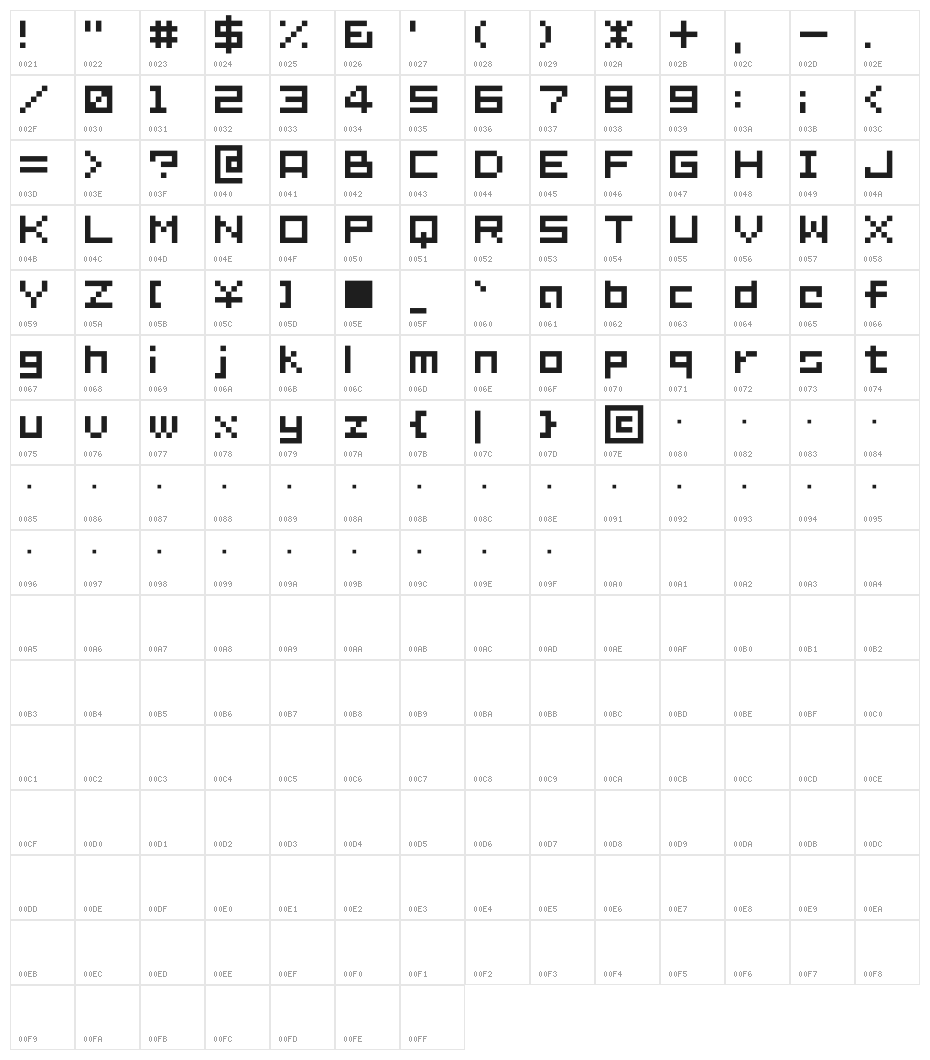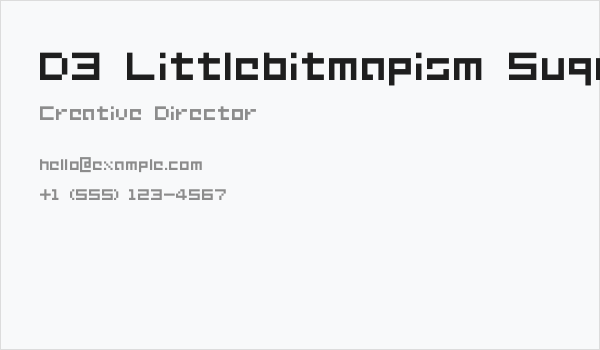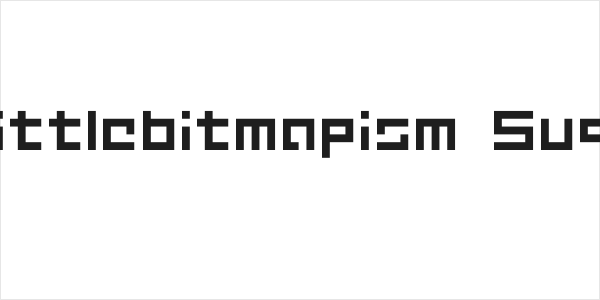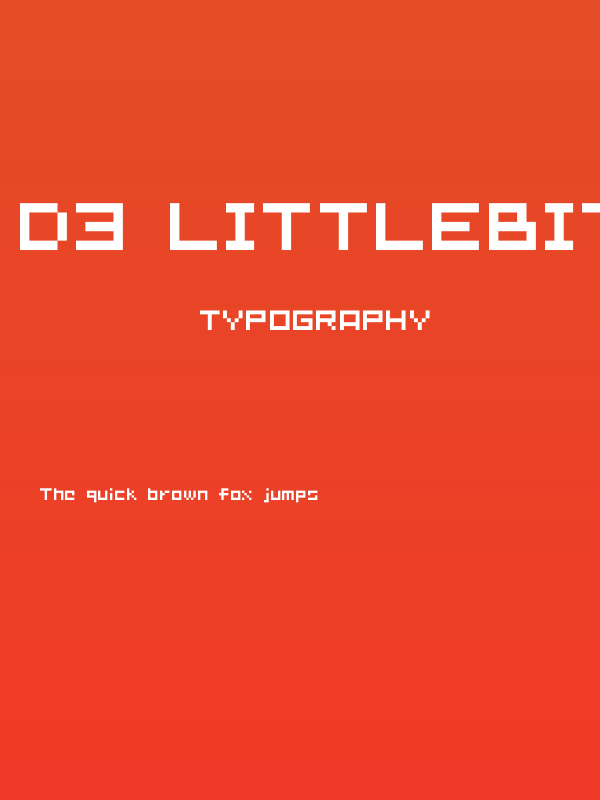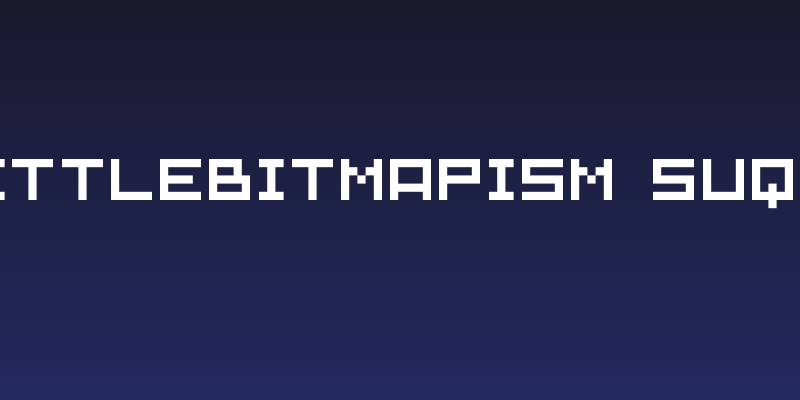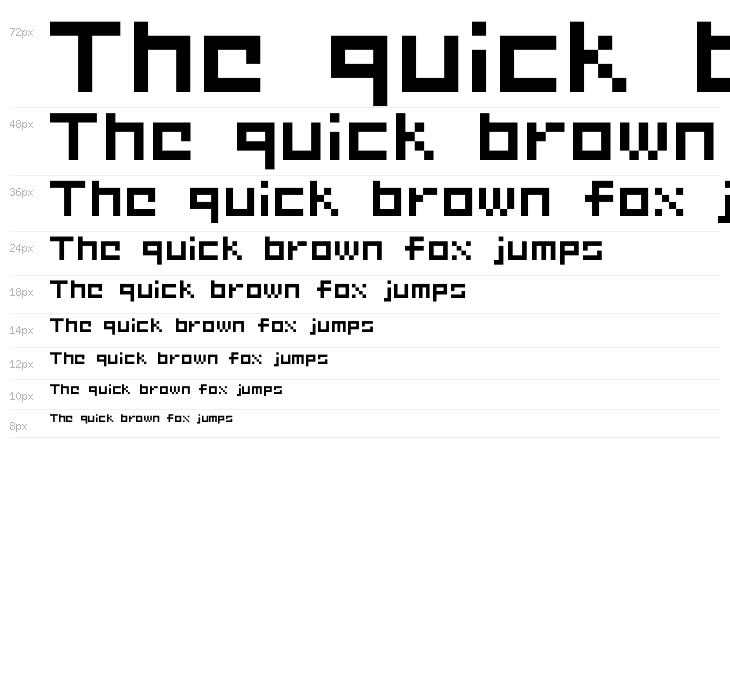
D3 Littlebitmapism Suquare Font
D3 Littlebitmapism Suquare Description
This font features a pixelated, blocky design reminiscent of early digital displays and retro video games. Each character is constructed with a uniform grid-like structure, giving it a distinctly geometric and minimalist appearance. The uppercase and lowercase letters maintain a consistent height and width, enhancing the font's monospaced feel. The numerals and special characters follow the same design principles, ensuring a cohesive look across all glyphs. This font's simplicity and clarity make it highly legible, even at smaller sizes, while its nostalgic aesthetic evokes a sense of vintage digital charm.
| Use Case | Logos, Headlines, Digital displays |
| Proposed Projects | Ideal for retro-themed designs, video game graphics, digital art projects, and any creative work that requires a nostalgic digital touch. |